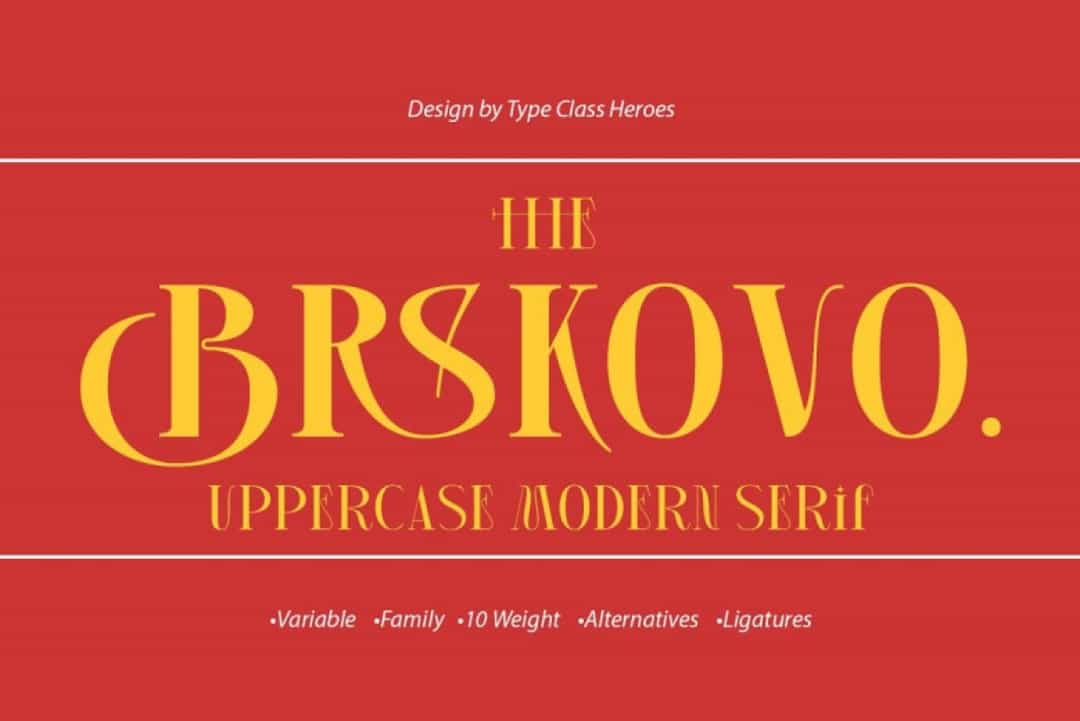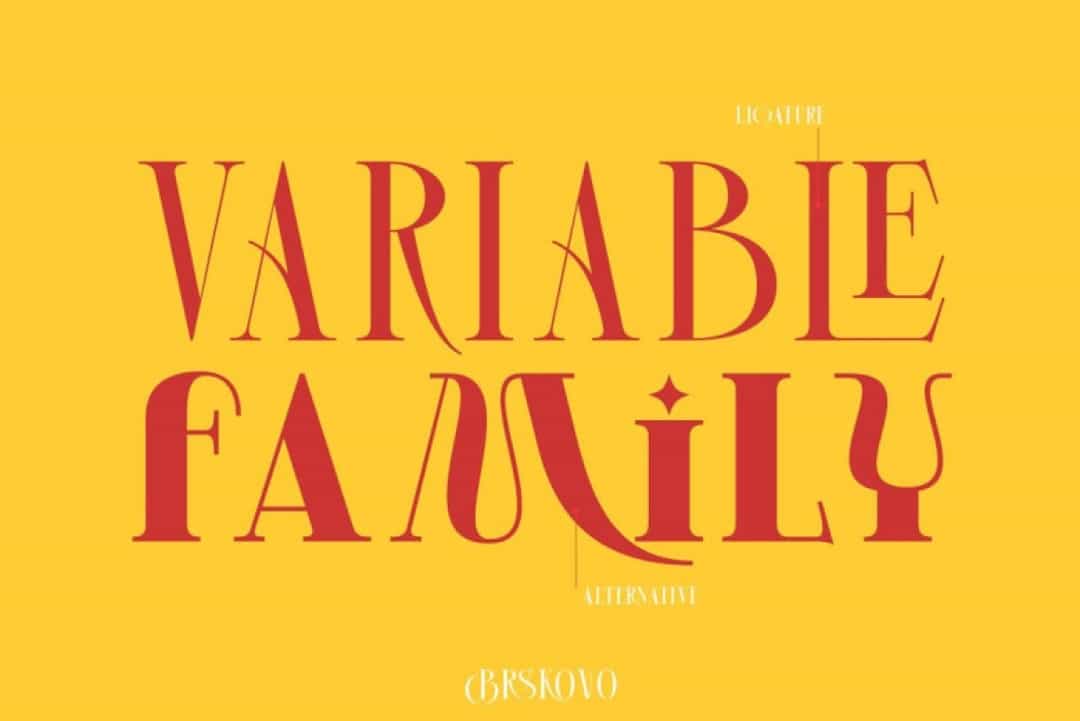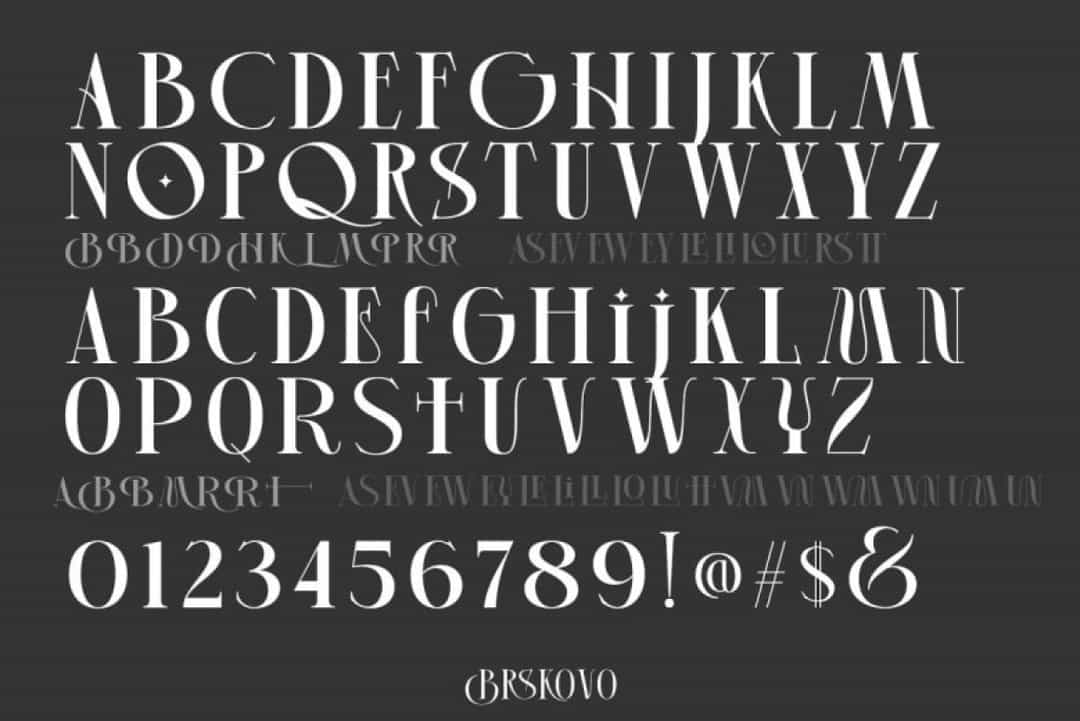
Brskovois Modern Higher case Serif Typeface Can Be Used for Branding, Packaging for Products Invitations Quotes T-shirt Label Poster Logo and more! PUA Encoded Font allows easy use of all characters and strokes!